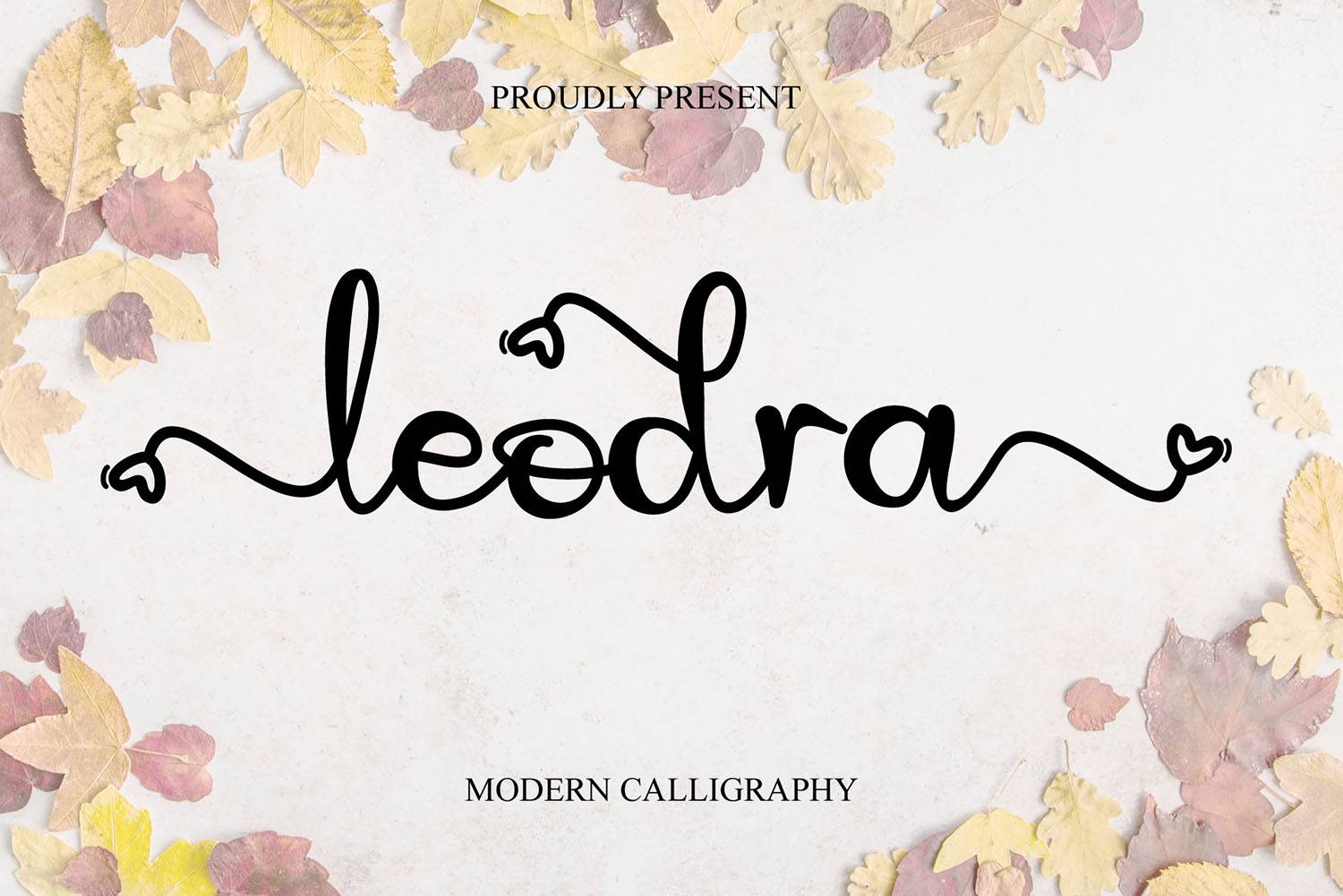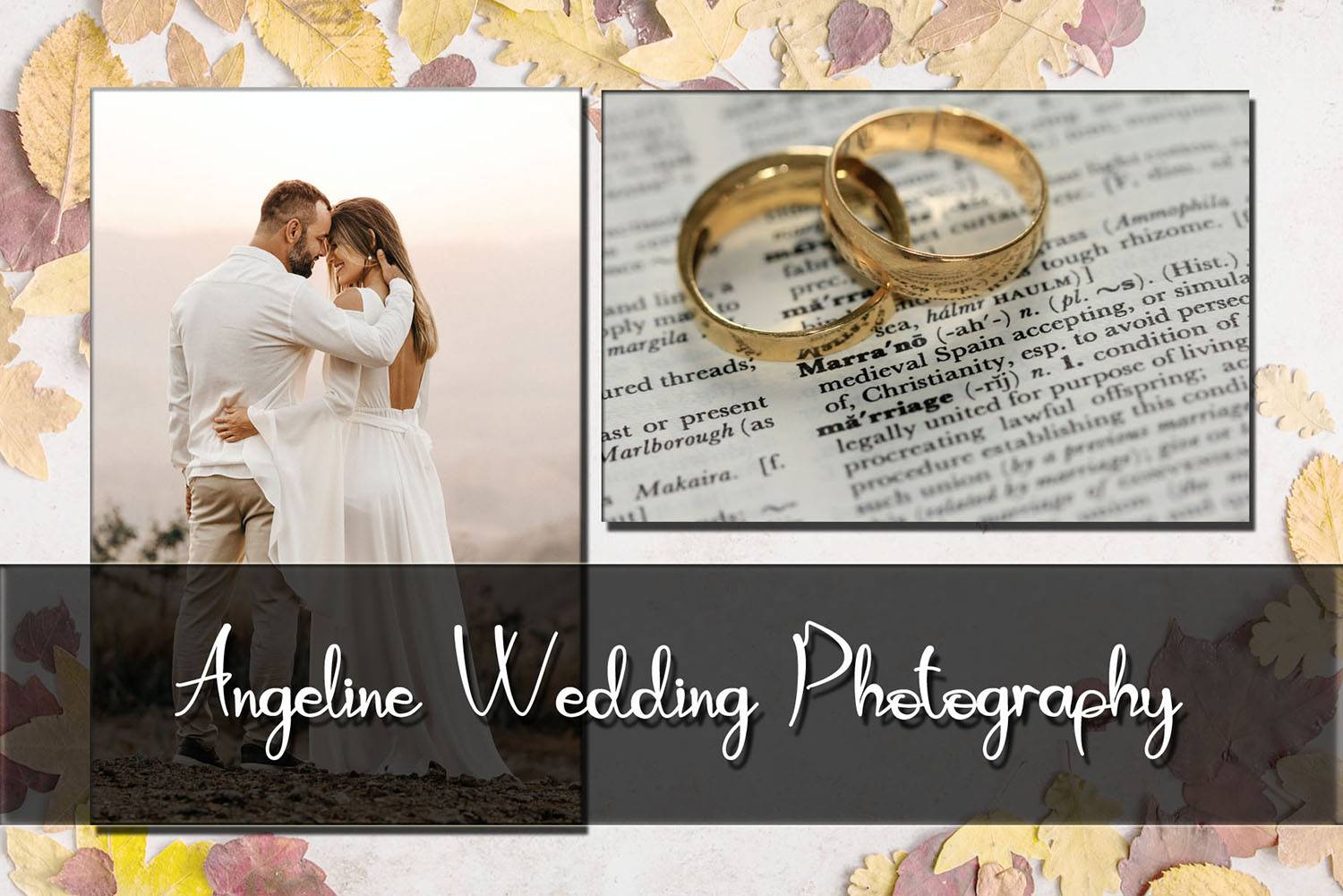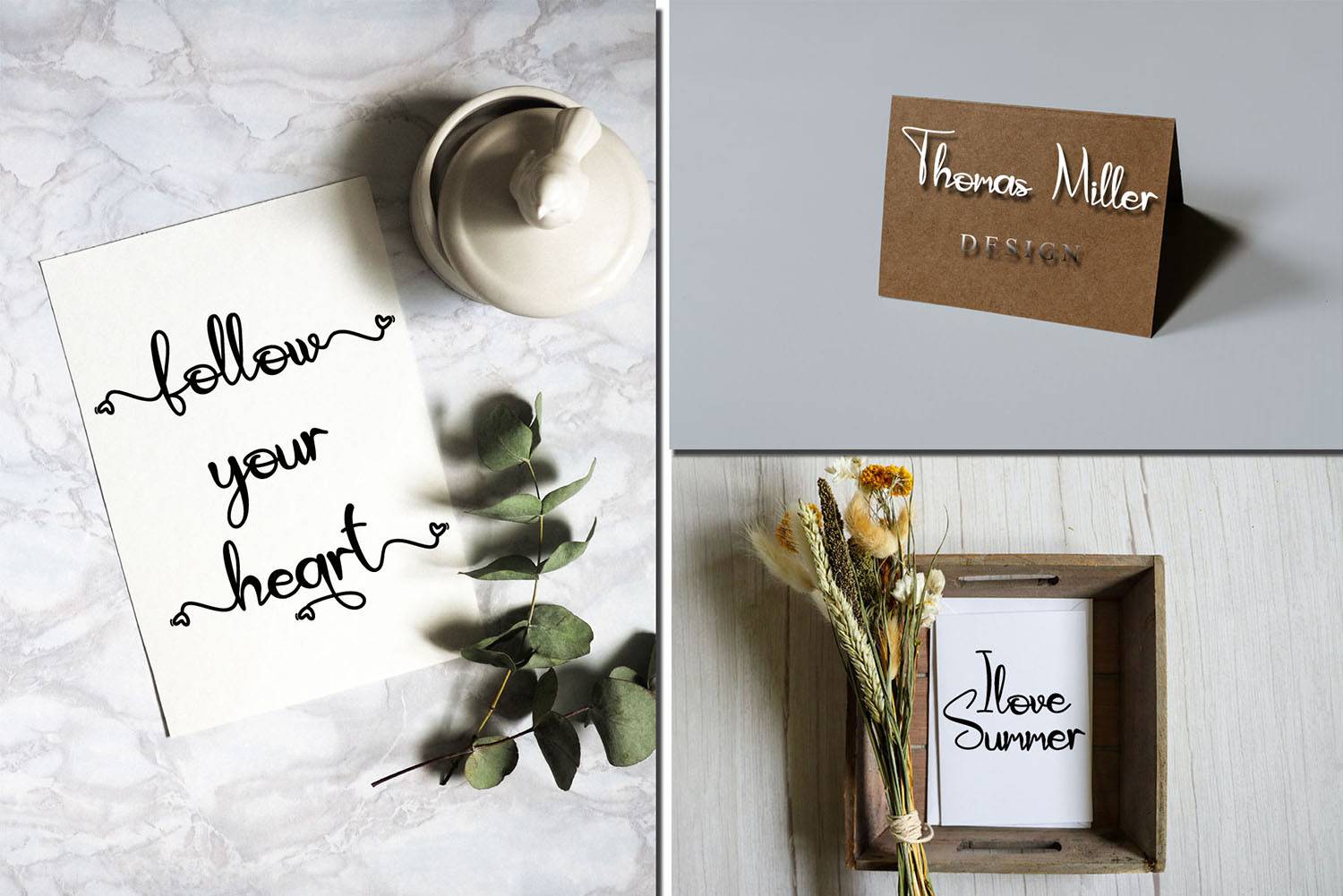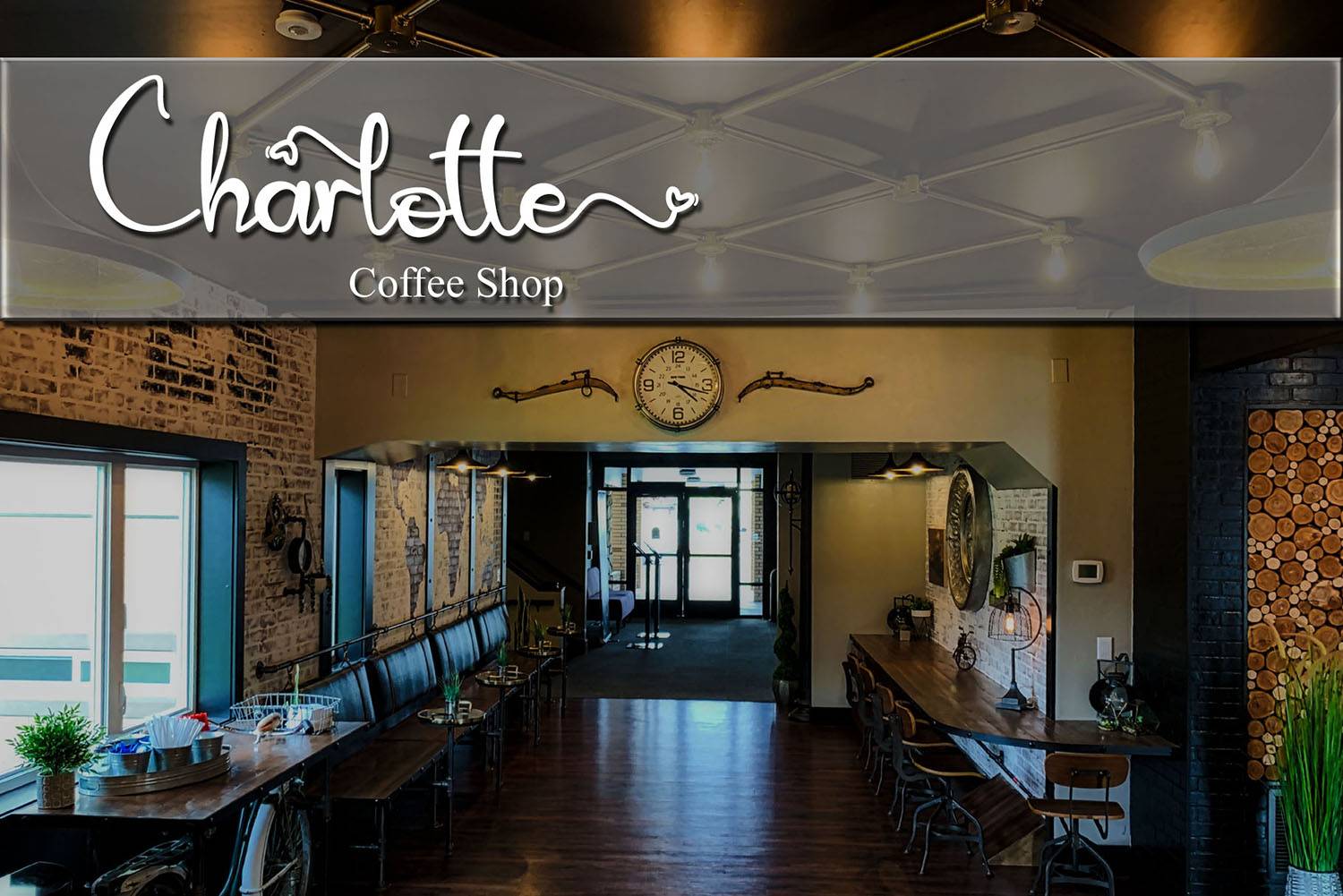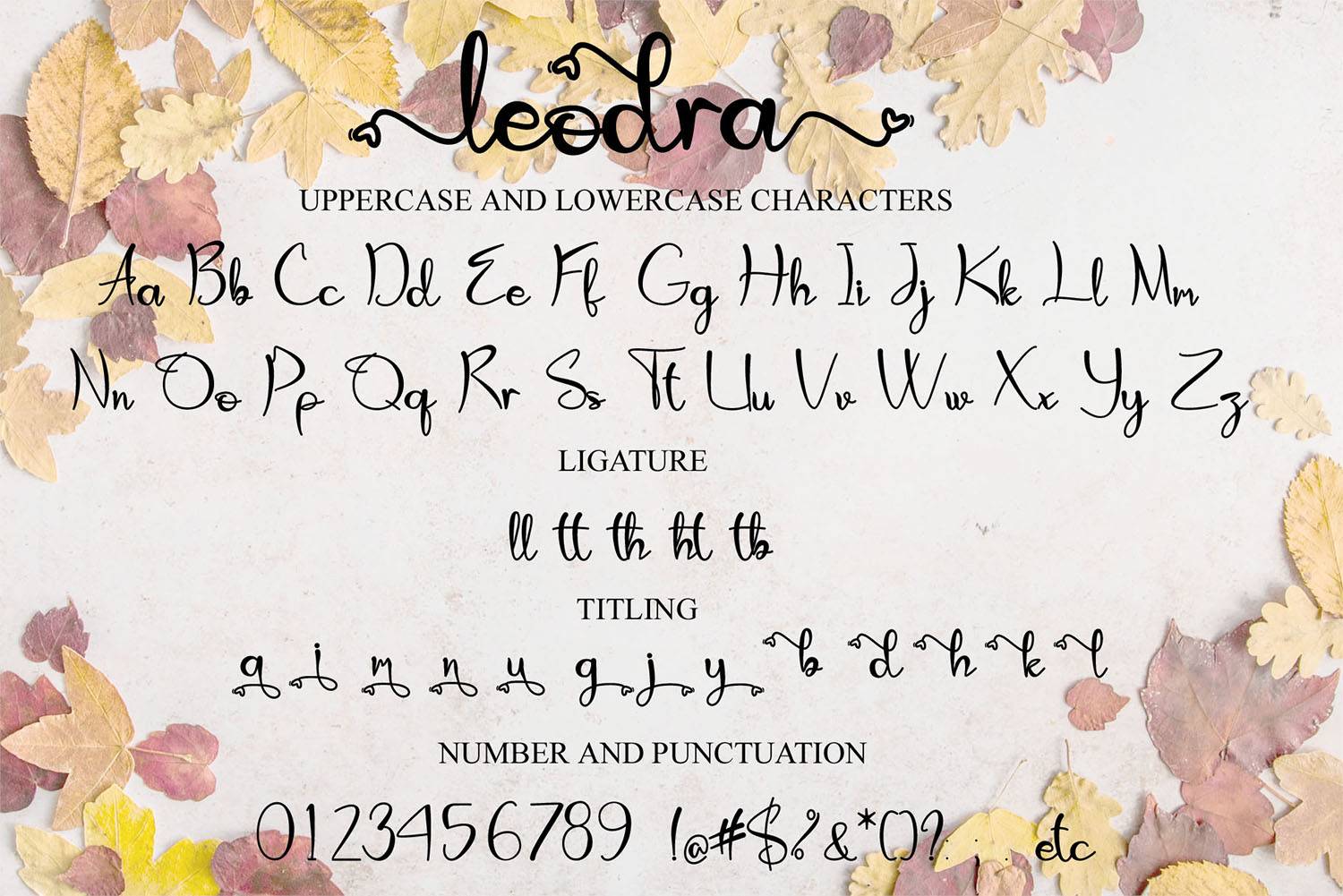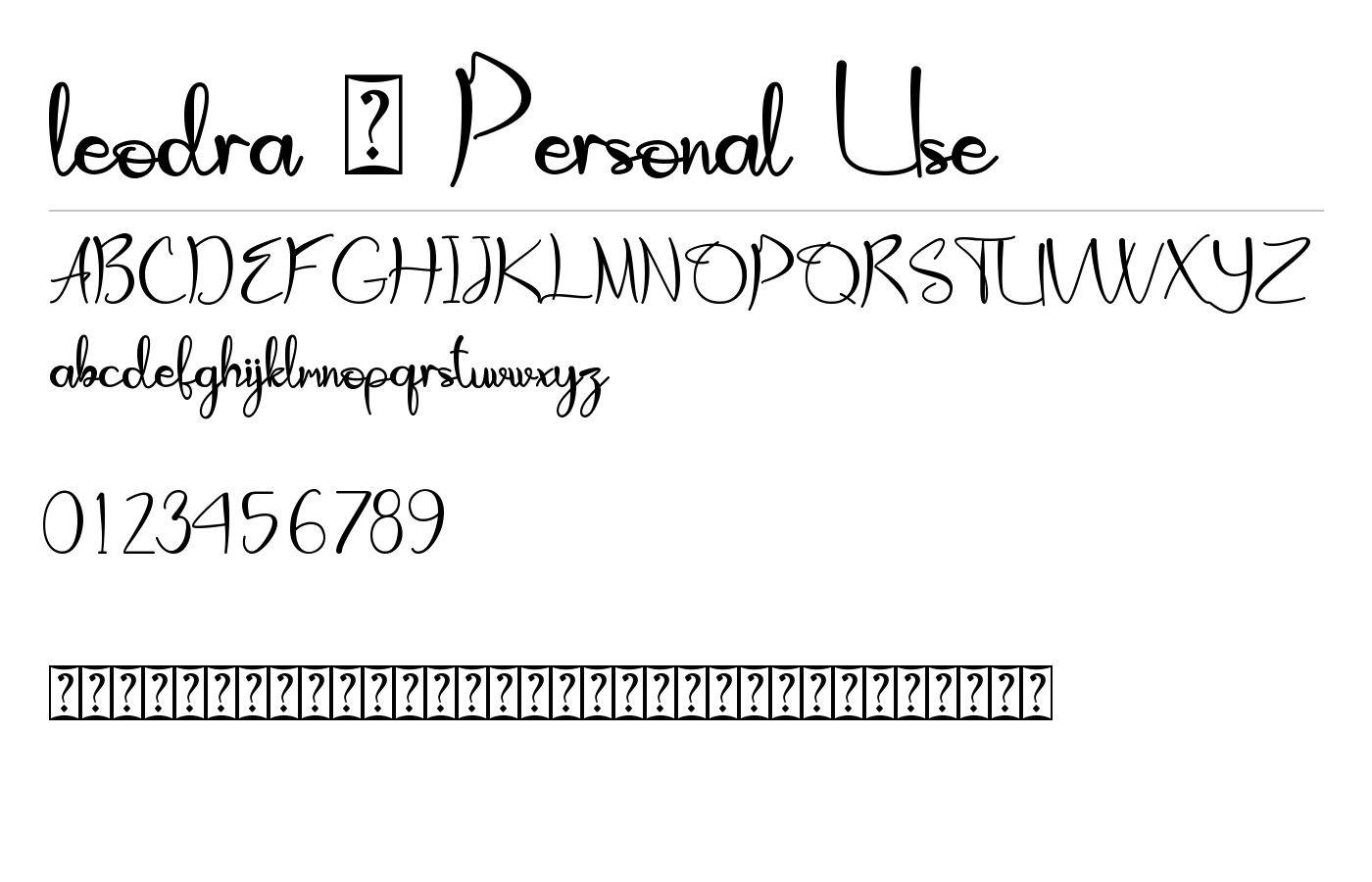
Leodra is a playful and elegant handwritten script font with a delicate, flowing style that feels personal and approachable. Its slender strokes and slightly irregular letterforms give it a warm, creative vibe ideal for casual branding, invitations, and artistic projects. This font works best in settings where a friendly, handcrafted touch is desired, adding charm without sacrificing readability.
Leodra Font
About Leodra Font
| Font family | Leodra Font |
| Designer | Vincentius Kriswandono |